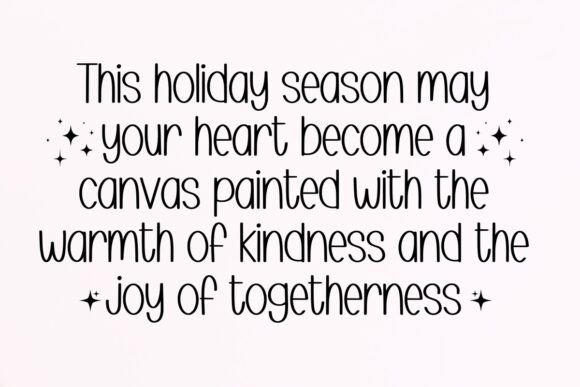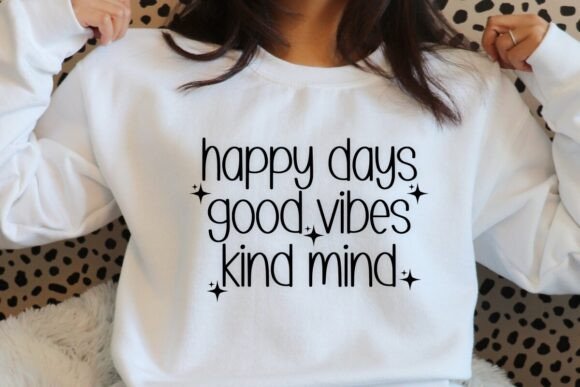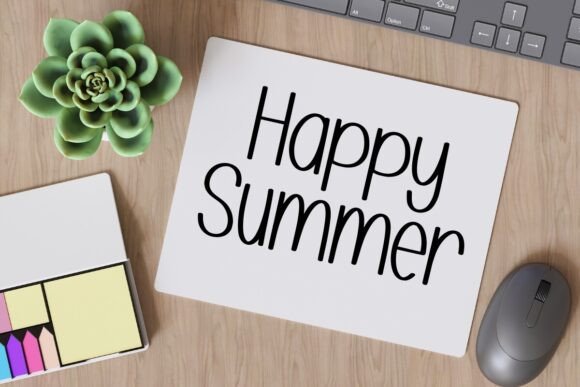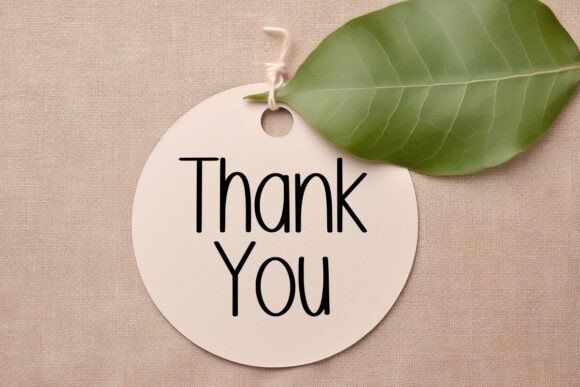
Christmas Stocking a modern and friendly sans-serif font, is a delightful blend of whimsy and clarity. Its playful curves and rounded edges bring a sense of warmth to any design. Perfect for children’s books, invitations, and branding, Christmas Stocking radiates a sweet charm that captures attention with its inviting personality.
Christmas Stocking Font